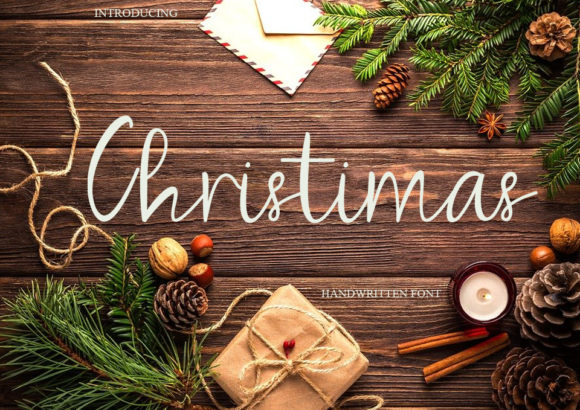
Whimsical and enchanting, Christimas is a flowing handwritten font that captures the magic of the holiday season. Each letter dances across your page, adorned with a sweet and delicate touch. With its gentle curves and playful flourishes, Christimas adds a touch of joy and warmth to any project.
Welcome to the realm of Christimas, a realm of elegance, sophistication, and pure beauty. Designed with love by HENGKIPRAMUDI, this script font is the epitome of creativity. Every letterform dances across your screen, connecting you with the festive spirit like never before.
With Christimas, the ordinary becomes extraordinary. It's the perfect companion for your web design projects, adding a touch of grace and artistry that will captivate your audience. Unleash your creative vision and turn your designs into masterpieces.
Christimas is more than just a font; it's an experience. It's the feeling of joy and warmth that washes over you as you behold its graceful curves. It's the sense of wonder and excitement that fills you as you imagine the possibilities that await.
With Christimas, you'll create designs that sparkle, designs that sing, designs that tell captivating stories. It's the perfect choice for creating personalized invitations, cards, and other special projects. With every stroke of Christimas, you'll leave a lasting impression, a magical touch that will evoke emotions and spark conversations.